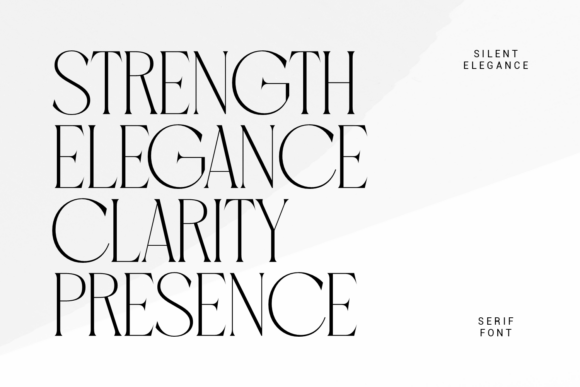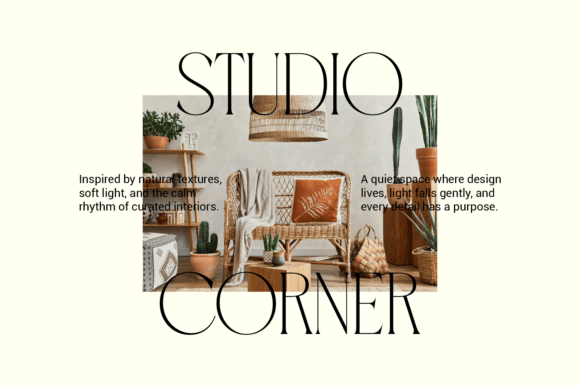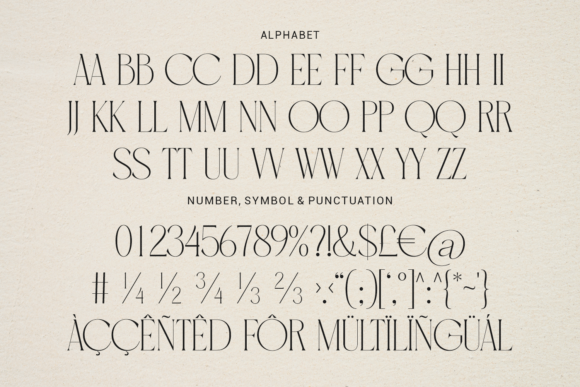
A promotional image for “Strong Editorial Display,” a modern and elegant serif font. The font itself is a very high-contrast serif with delicate, fine lines, making it perfect for high-fashion headlines and editorial design.
Strong Editorial Display Font